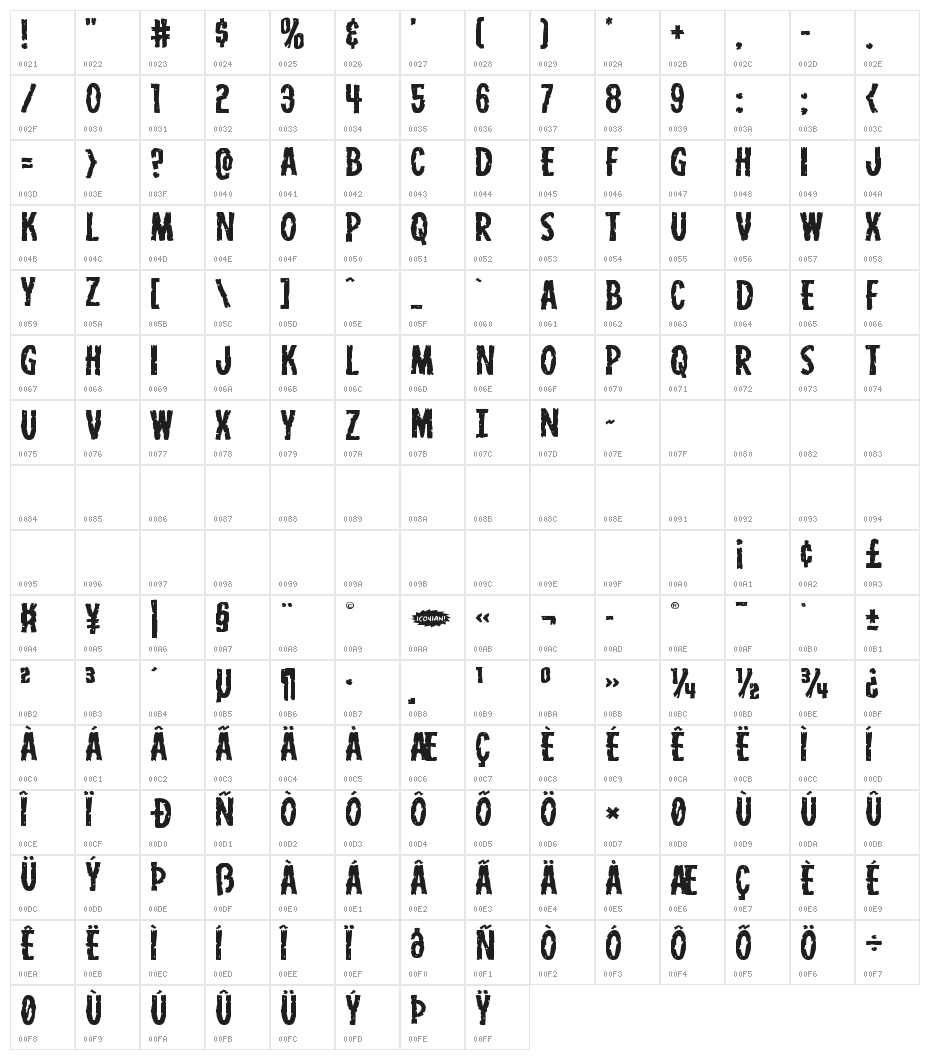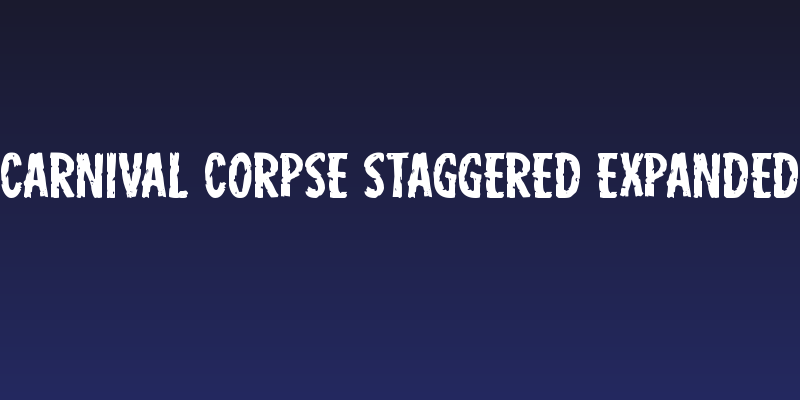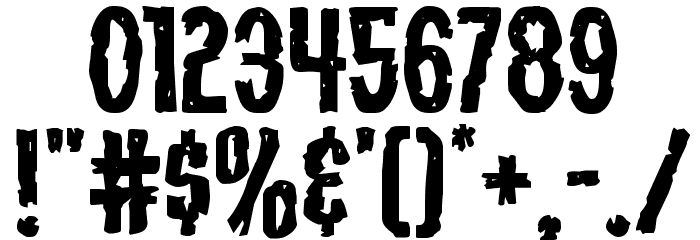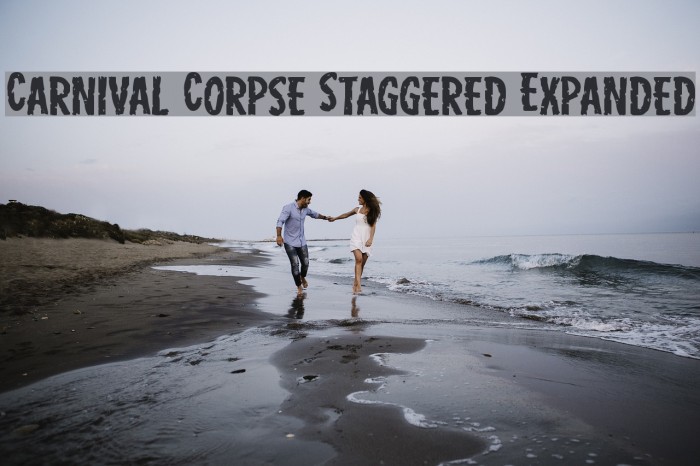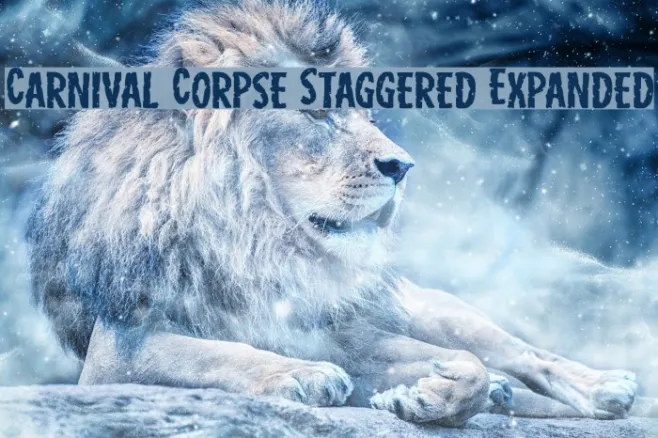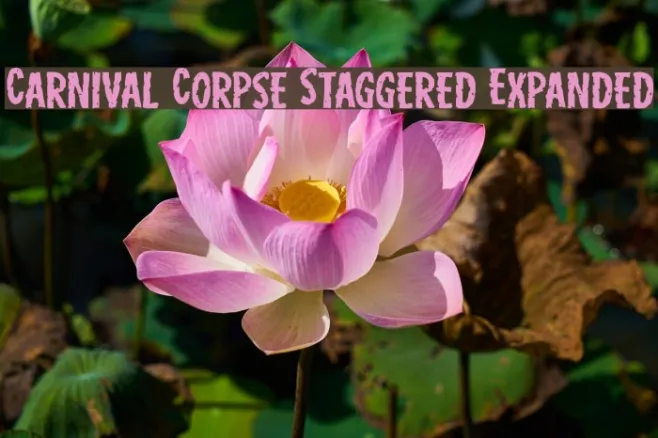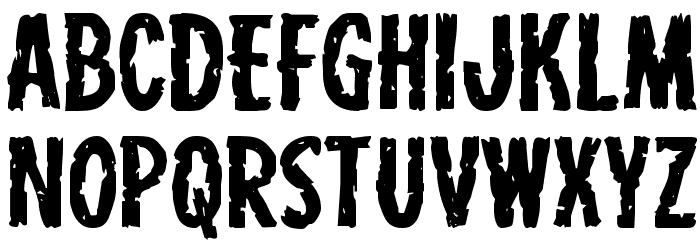
Carnival Corpse Staggered Expanded Font
Carnival Corpse Staggered Expanded Description
This font features a bold and rugged style with a distressed, grungy appearance. The characters are unevenly staggered, giving a chaotic and dynamic feel. Each letter and number has a rough, textured edge, reminiscent of a hand-painted or stamped look. The font conveys a sense of energy and rebellion, making it ideal for designs that require a bold statement. The uppercase and lowercase letters maintain a consistent style, and the numbers and special characters complement the overall aesthetic. This font is perfect for projects that aim to capture attention with its unique and unconventional design.